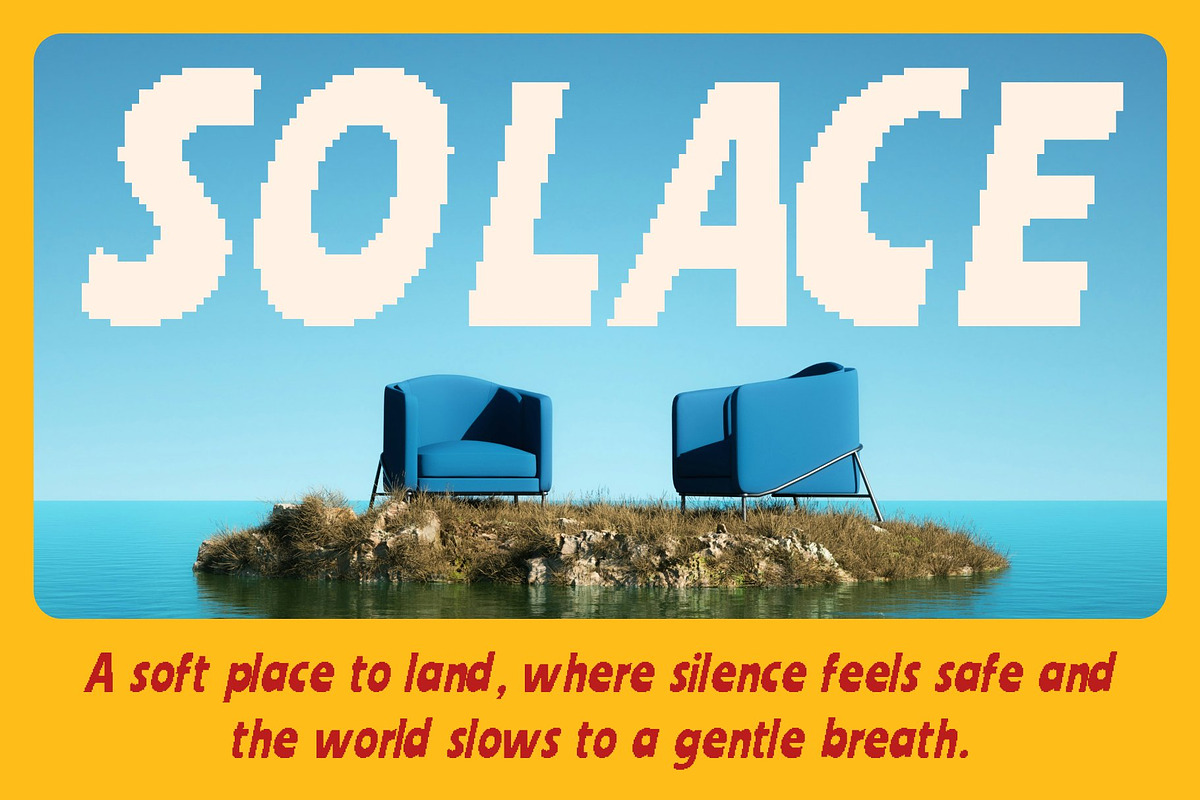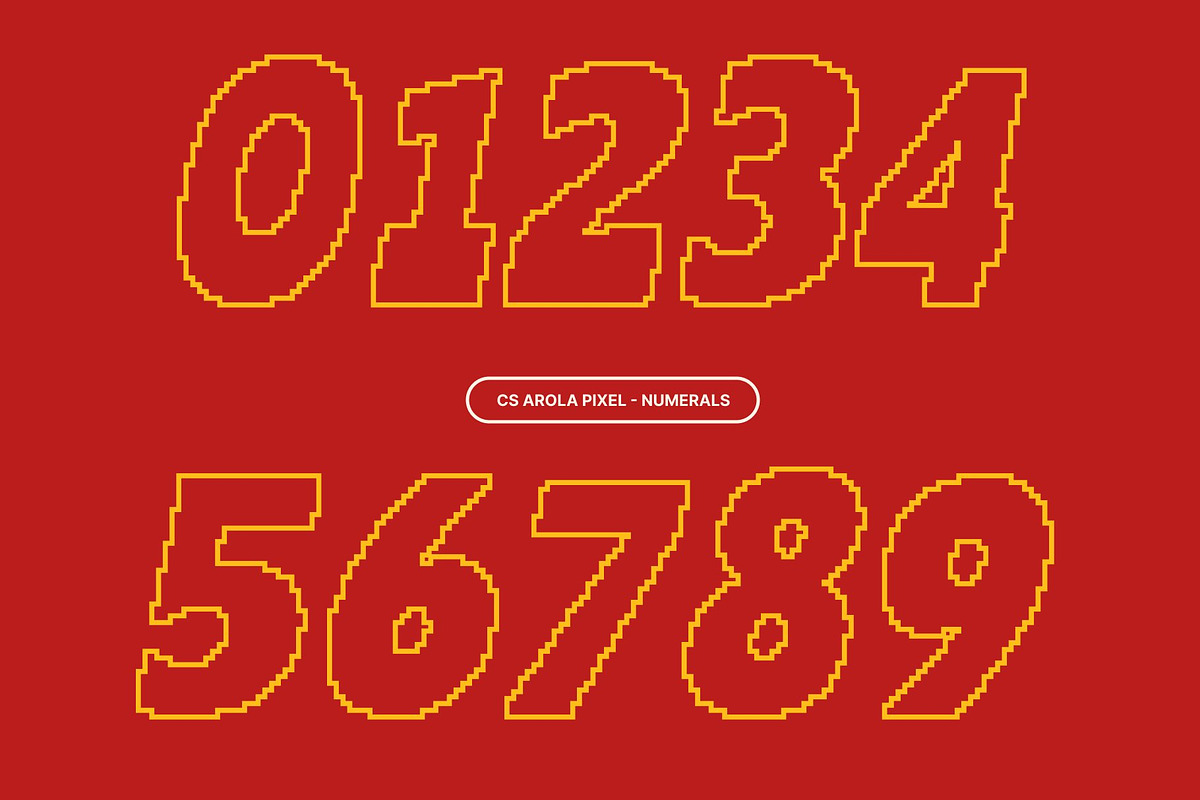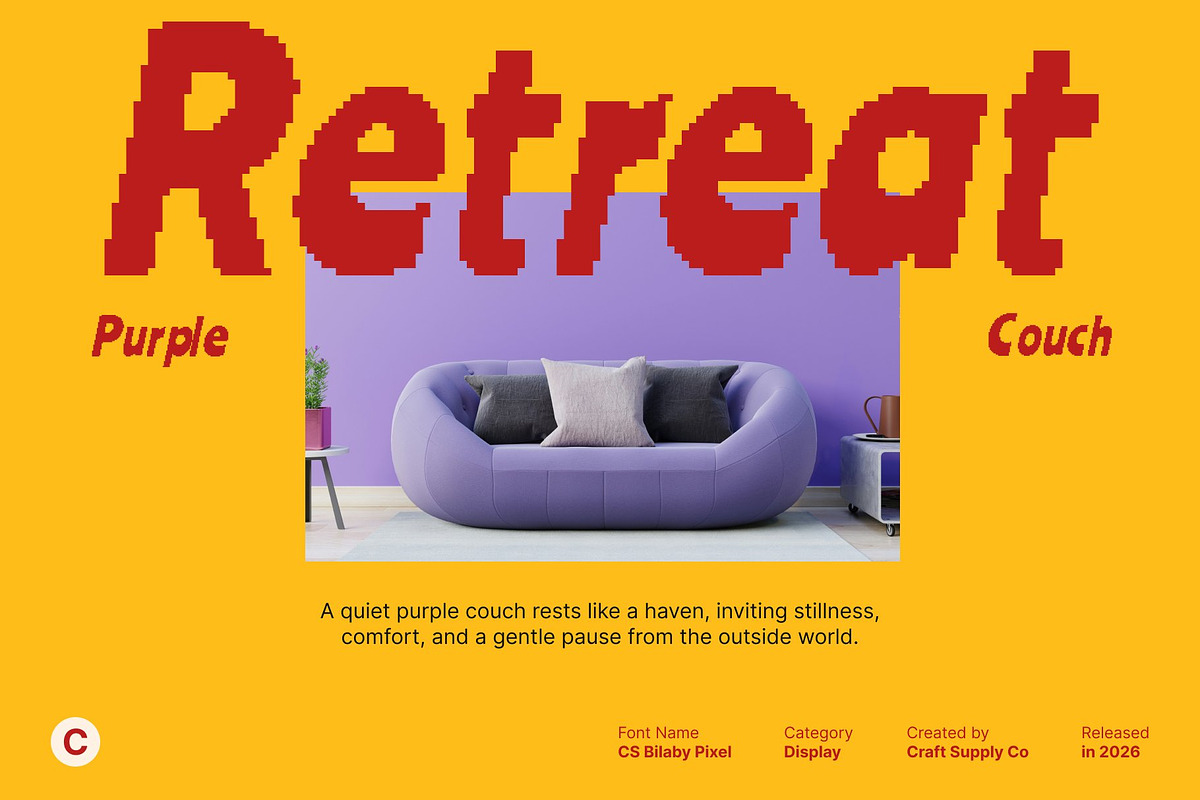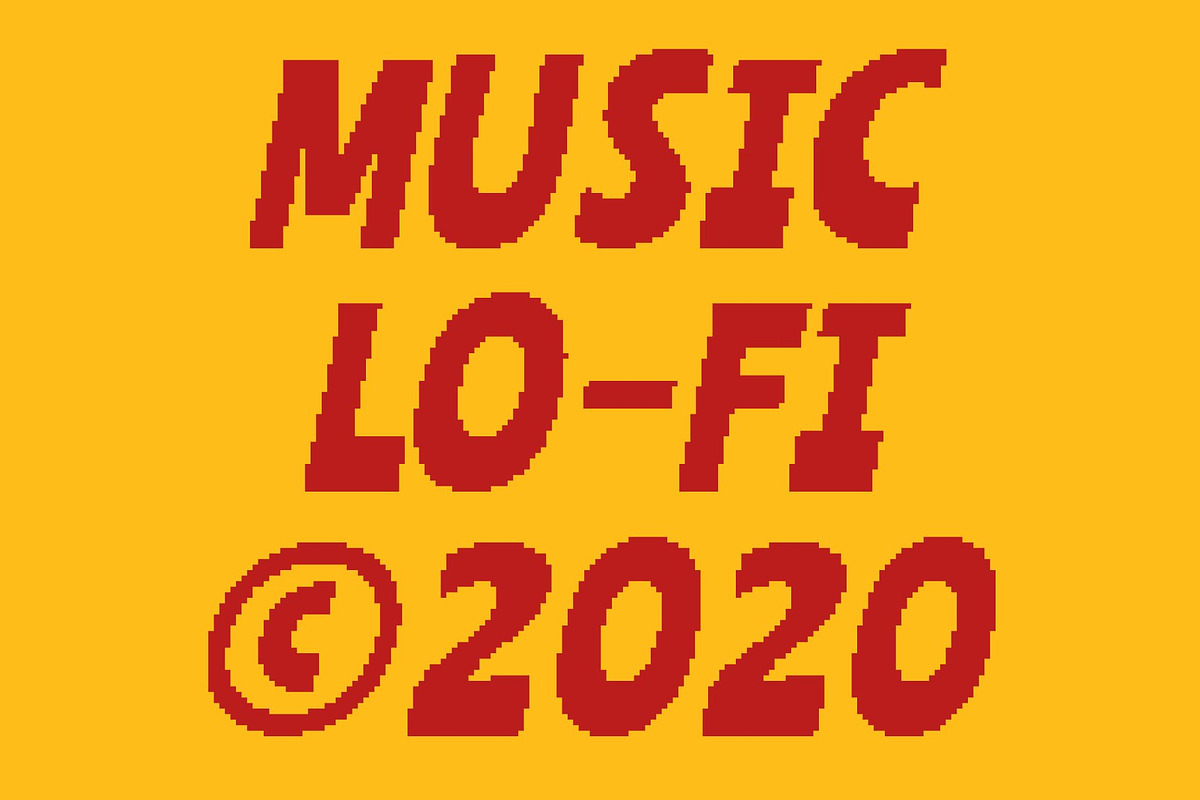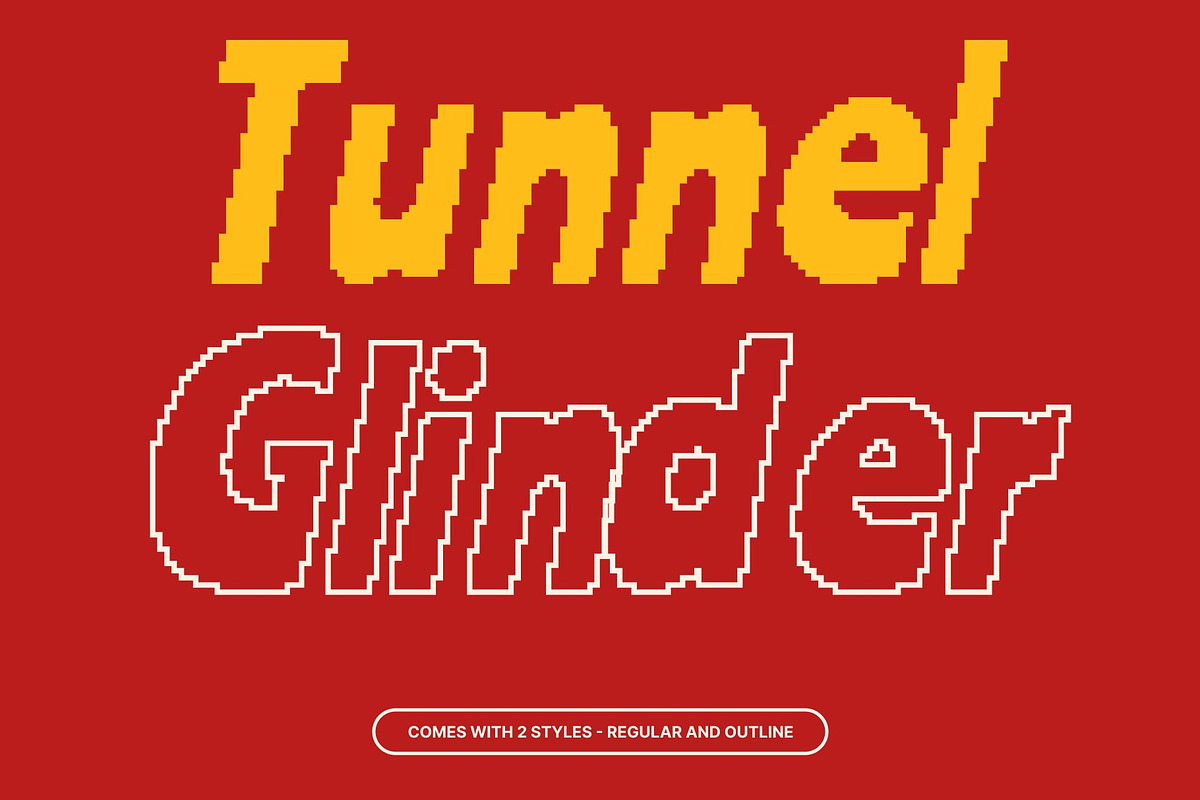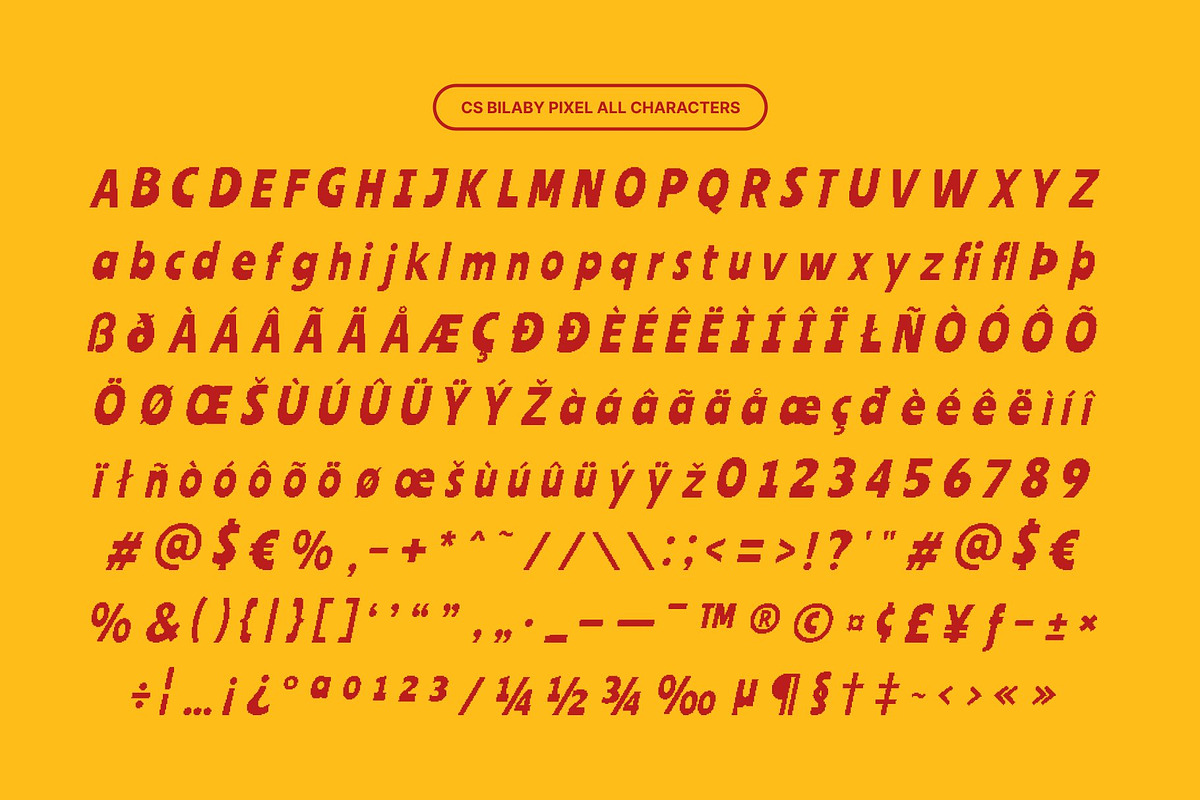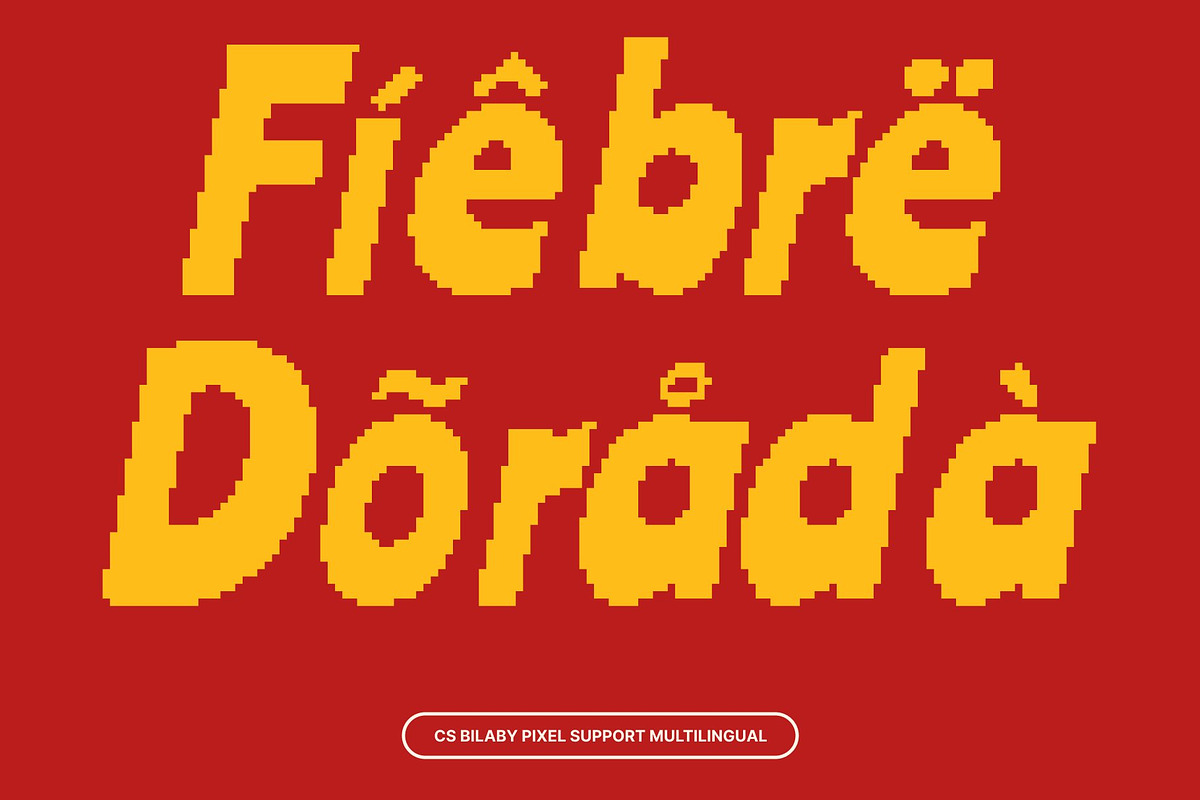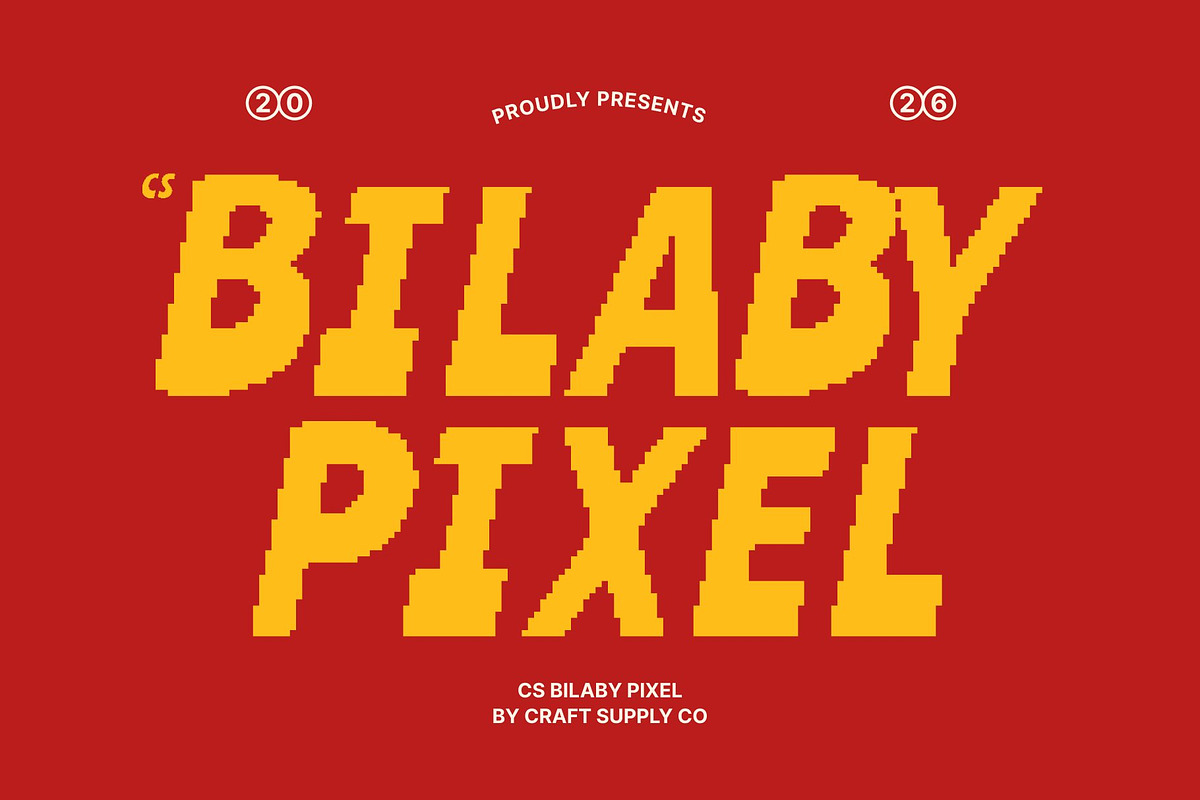
CS Bilaby Pixel
CS Bilaby Pixel – Playful Expression with Modern Charm
Modern Display Font with Handwritten Pixel Personality This is a modern display font that blends the warmth of handwritten expression with a clean, pixel-based structure. Its friendly letterforms and digital construction create a unique balance between human charm and modern design. The pixel style adds a subtle retro–digital feel, making the font feel fresh, approachable, and visually engaging in contemporary layouts.
Expressive Shapes with Cheerful Energy This font features playful proportions, smooth curves, and quirky details translated into a pixel aesthetic. The result is a cheerful and expressive character that instantly brings joy and personality to any design. Its lively rhythm and handcrafted feel make text look dynamic and full of life, while the pixel form keeps everything structured and visually clear.
Balanced Between Fun Creativity and Clear Design While this font embraces a fun, handwritten spirit, it maintains strong readability and visual order. The clean pixel construction ensures clarity, allowing the font to perform well in both bold display use and supporting typography. This balance makes it suitable for projects that want to feel creative and friendly without losing professionalism.
Perfect for Fresh, Playful, and Modern Projects This font is ideal for titles, posters, branding, packaging, social media graphics, and playful digital designs. It works beautifully for youthful brands, creative campaigns, and modern visuals that need character, warmth, and a touch of digital charm.
- CS Bilaby Pixel Regular
- CS Bilaby Pixel Outline